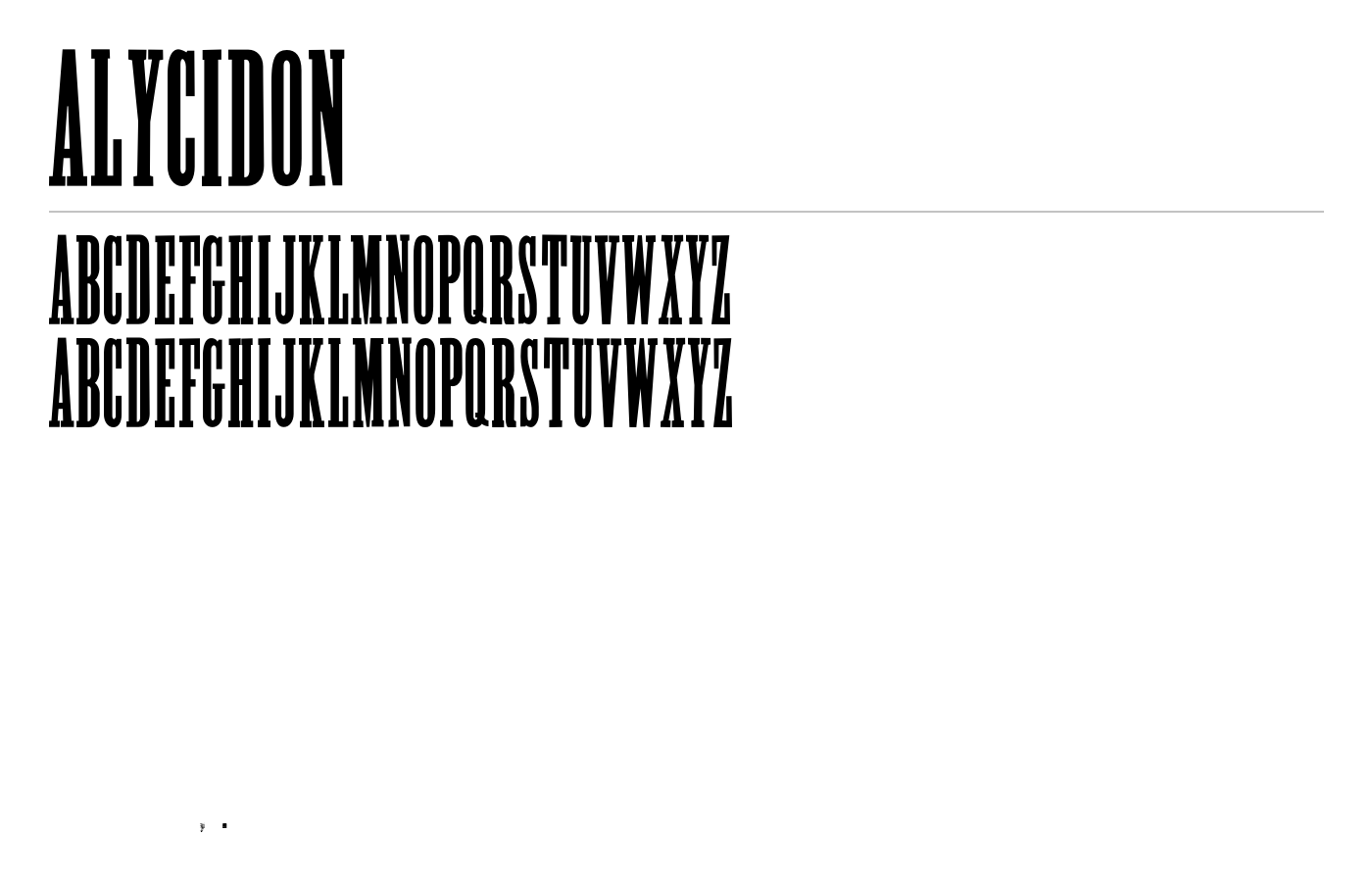
Alycidon is a condensed slab serif font that features tall, narrow letterforms with strong vertical emphasis and thick, consistent strokes. Its bold, compact design communicates a vintage, authoritative feel, making it ideal for striking headlines, posters, and branding that require a powerful, classic presence. The font’s tight spacing and uniform weight create a distinctive, memorable style that works well for fashion, editorial, and packaging projects seeking a bold yet elegant impact.
Alycidon Font
About Alycidon Font